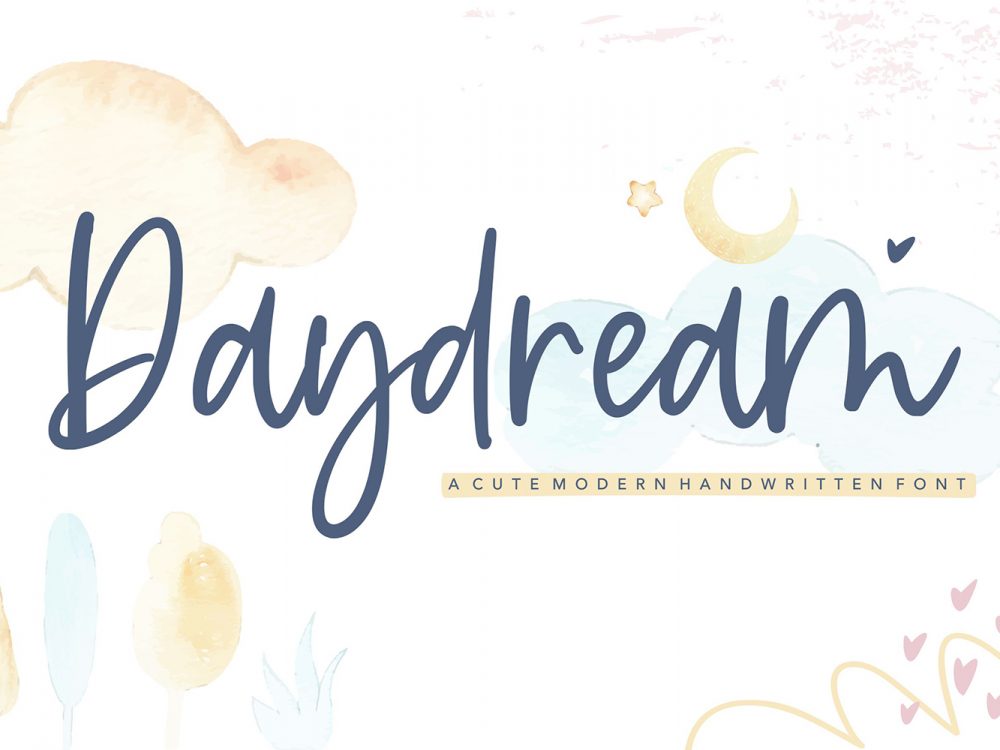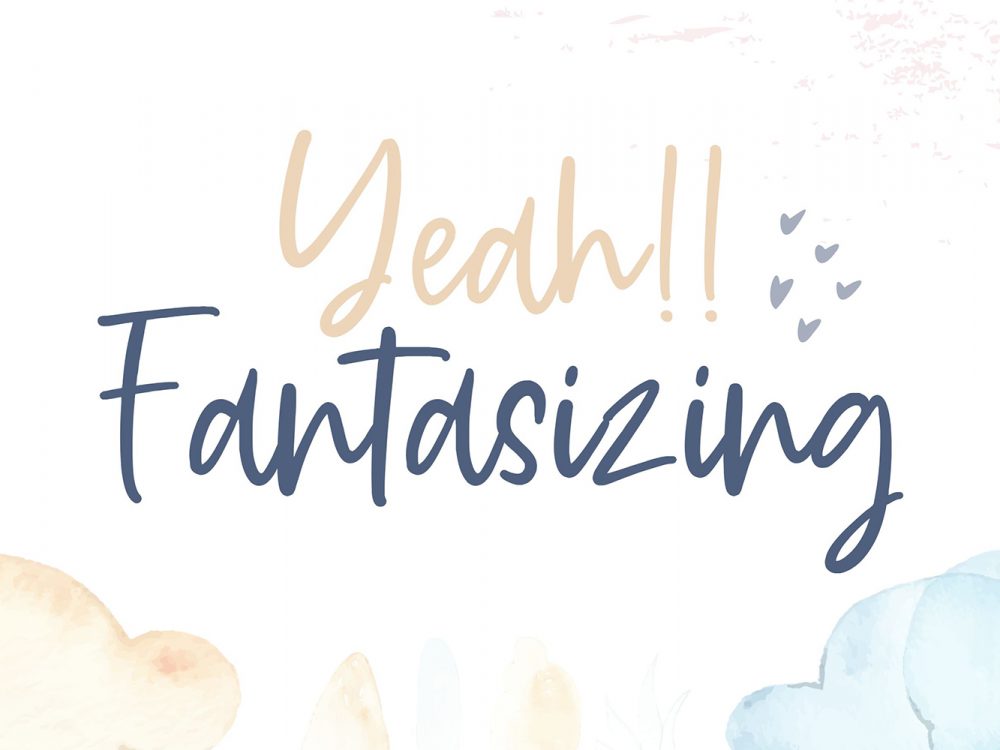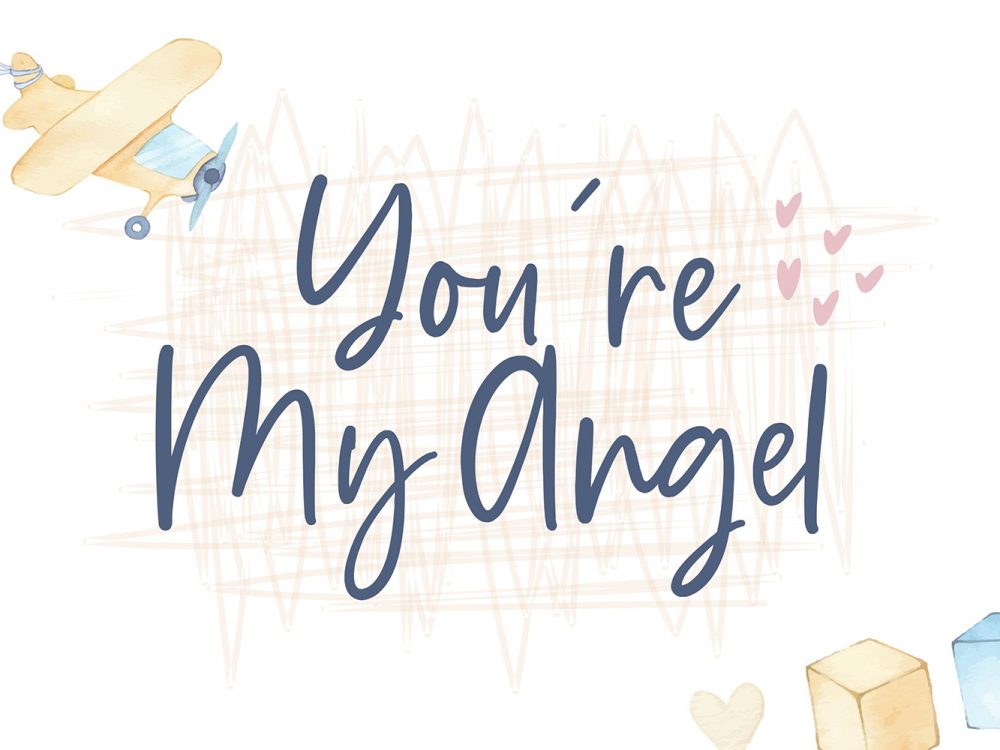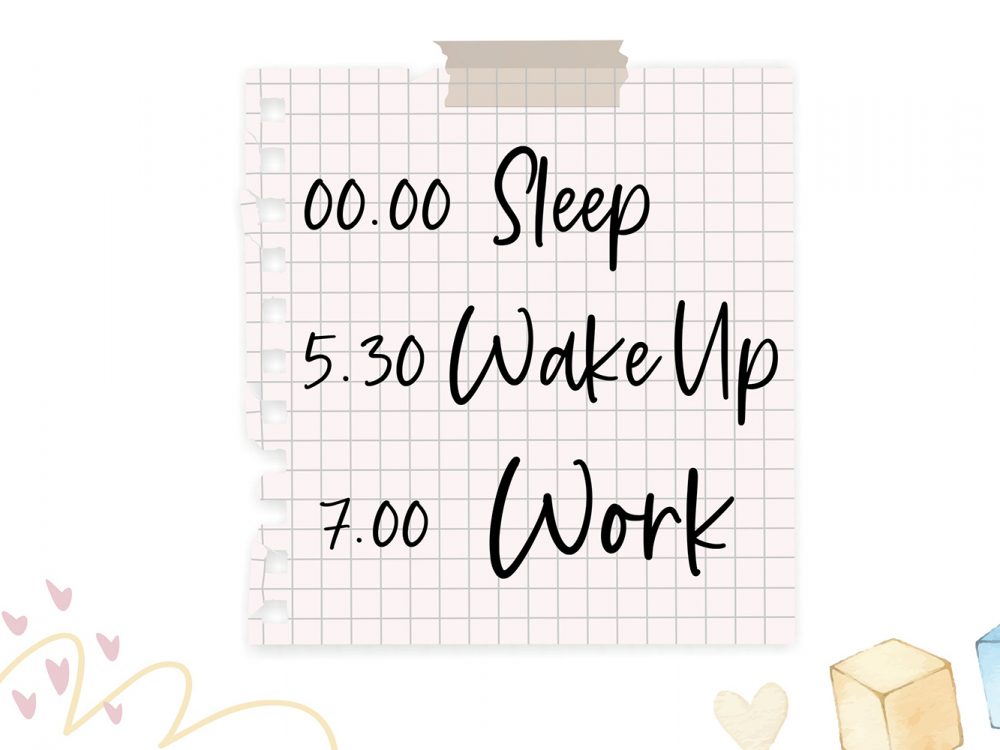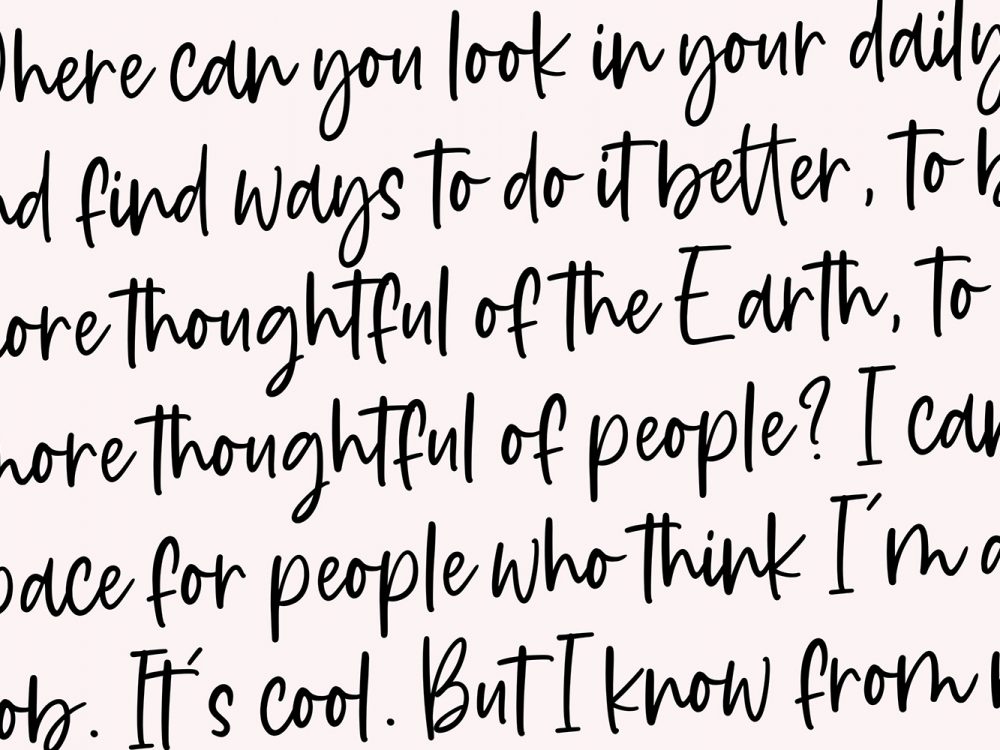
Daydream Free Font
Daydream Free Font is an interesting beautiful handwritten font that simulates detailed brush writing and is very suitable for creating various design projects that require a scripted font. These can be posters, wedding invitations, cards, branding, flyer prints, and more. If you wish to access more features and use them for commercial work please buy the full version.